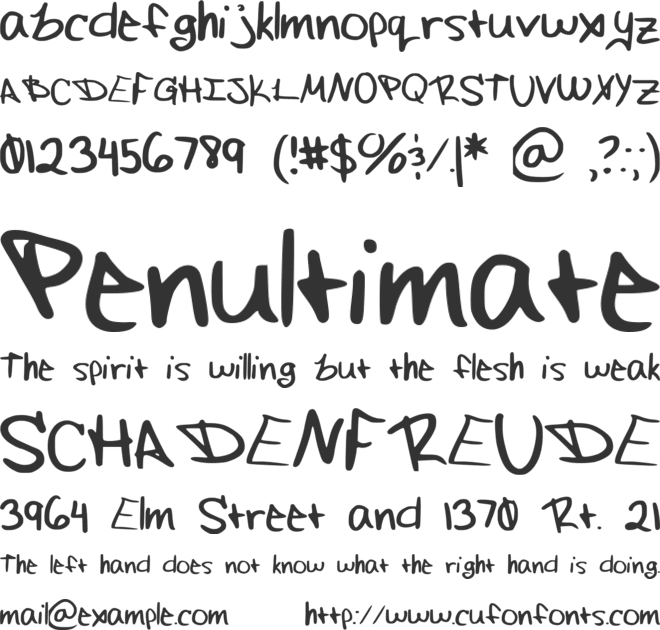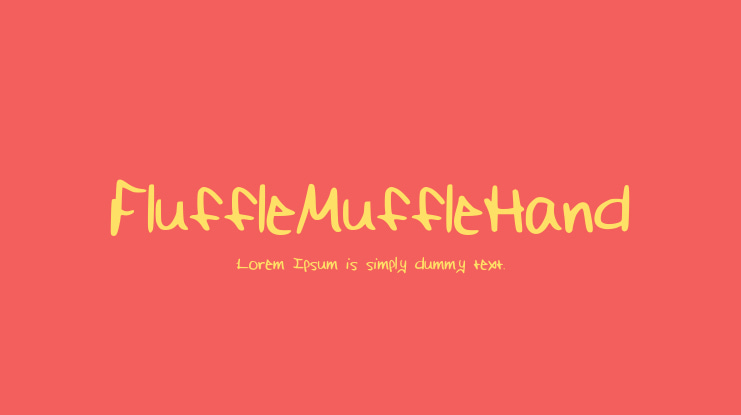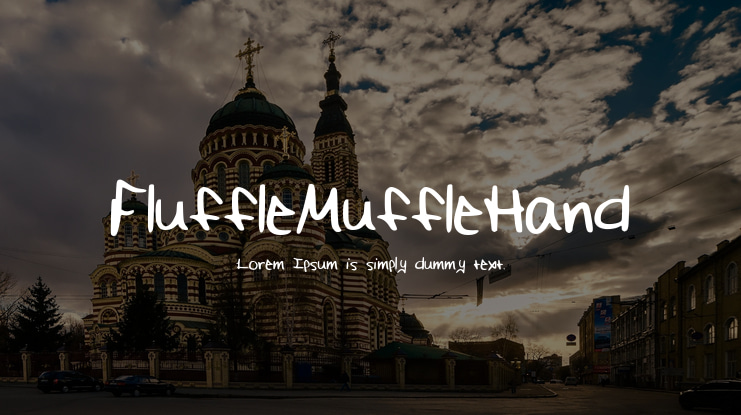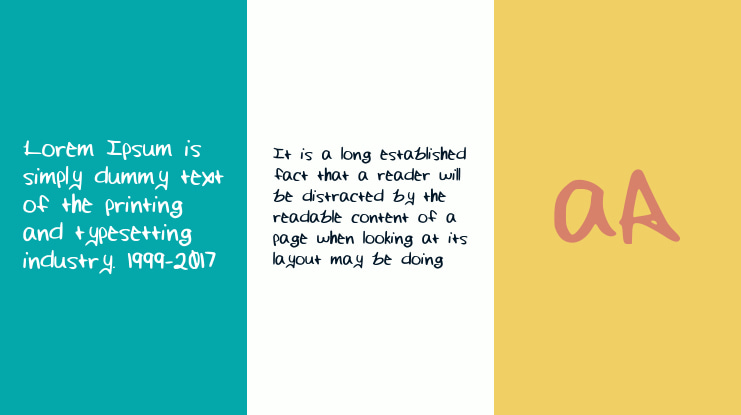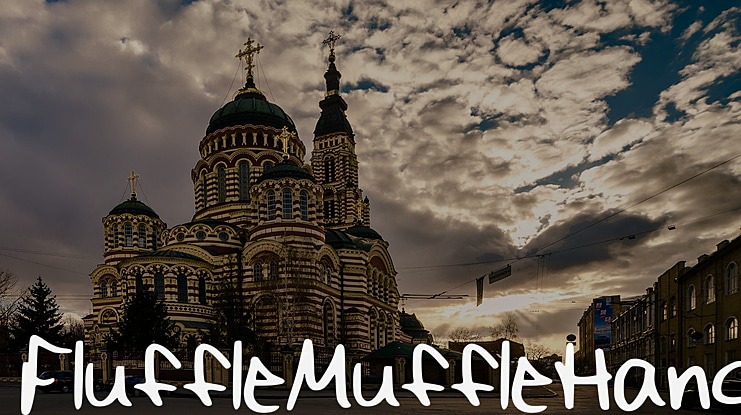
FluffleMuffleHand Font
I decided to create a not-so-good font of my handwriting. I'm sorry you had to see that... It's my first attempt so be nice c: